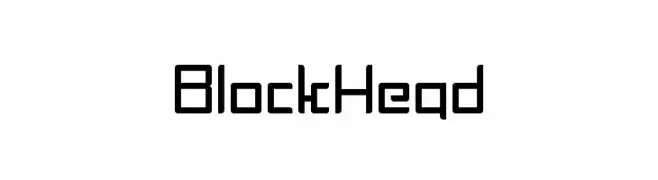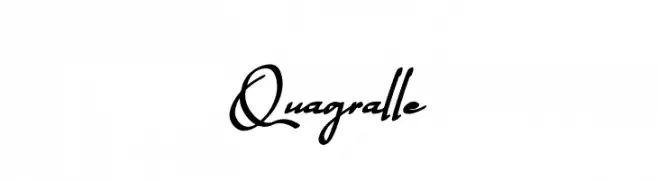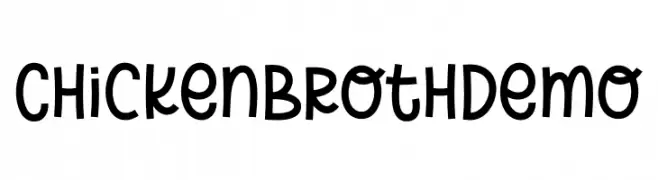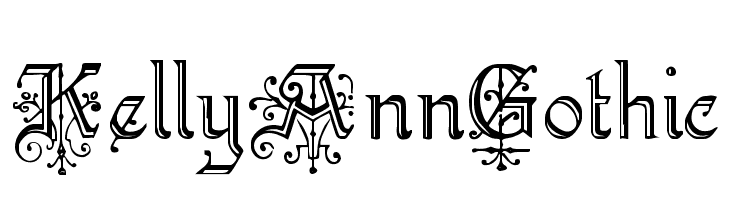
A geometric, blocky font with uniform line thickness and a digital aesthetic.
A bold, rounded font with a playful and whimsical style.
A dynamic and fluid script font with elegant, flowing letterforms.
A bold, expressive script font with fluid, cursive letterforms.
A playful, hand-drawn style font with rounded edges and consistent stroke width.
A bold, playful font with a hand-drawn, whimsical style.
A bold, Gothic-inspired font with sharp, angular characters and a strong vertical emphasis.
A lively and elegant script font with smooth, flowing curves.
A monospaced sans-serif font with semi-condensed, semi-bold style for clarity and modern appeal.